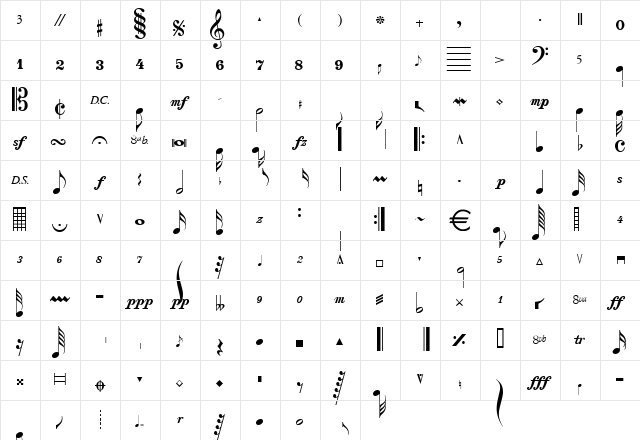
Notes Normal
Notes Family
Complete Notes Normal glyph index. Displaying only characters natively supported by Notes Normal font.
Design Context for Notes
Notes is a composed and adaptable typeface that performs quietly and consistently across a wide range of design contexts.